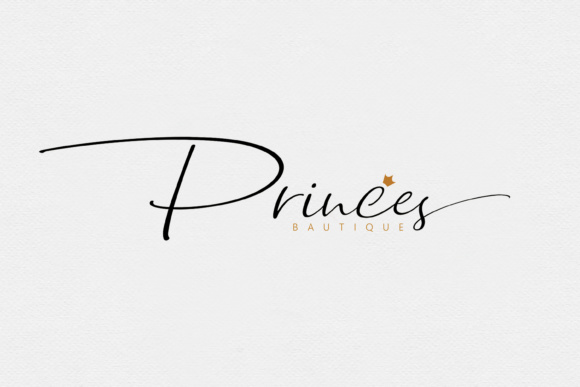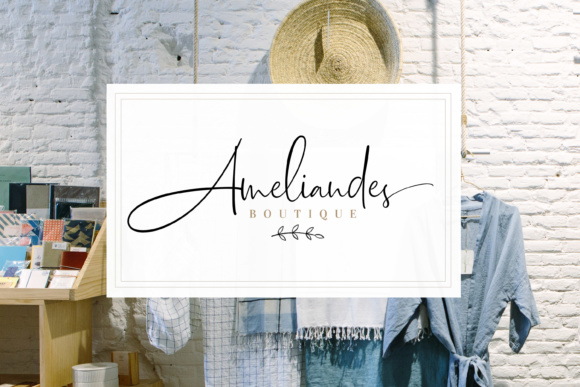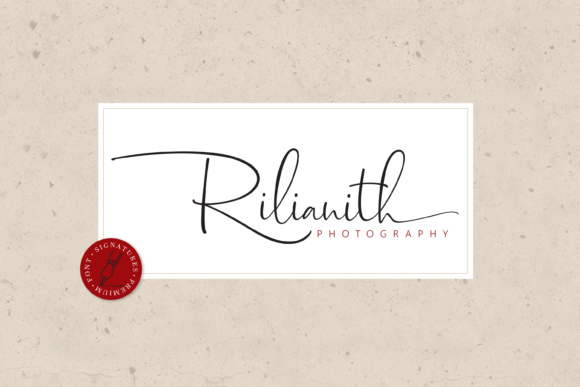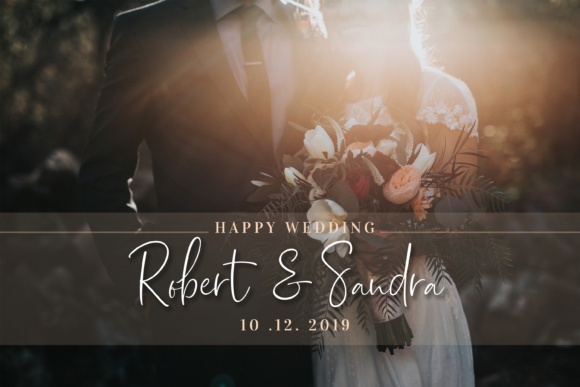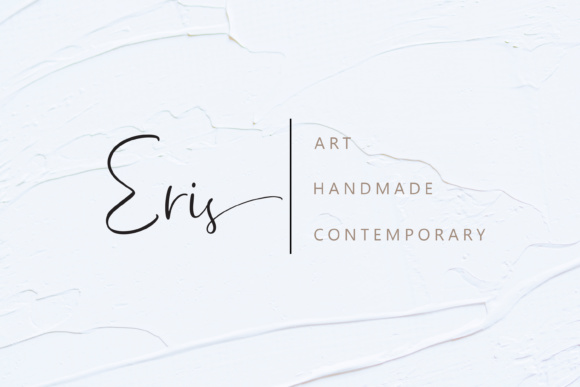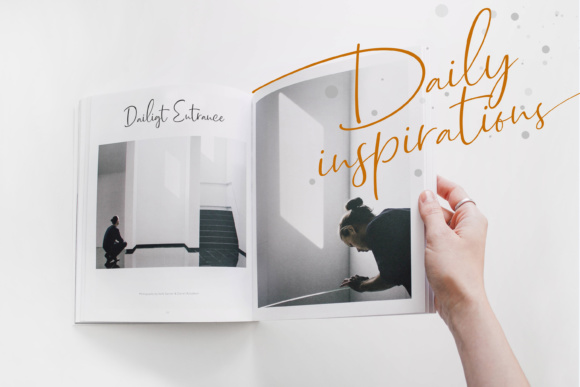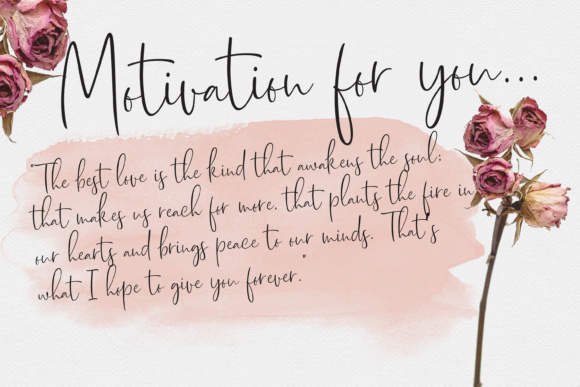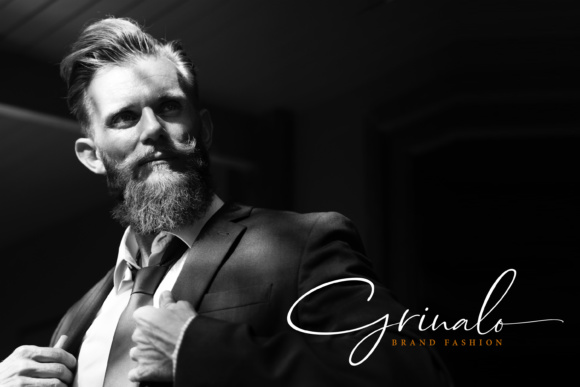
Dhanikans Font
About Dhanikans Font
The Dhanikans is an unique, cool and modern handwritten font. It’s hand made style makes it perfect for use in all your design projects such as logos, signatures, labels, packaging design, blog headlines and much more!